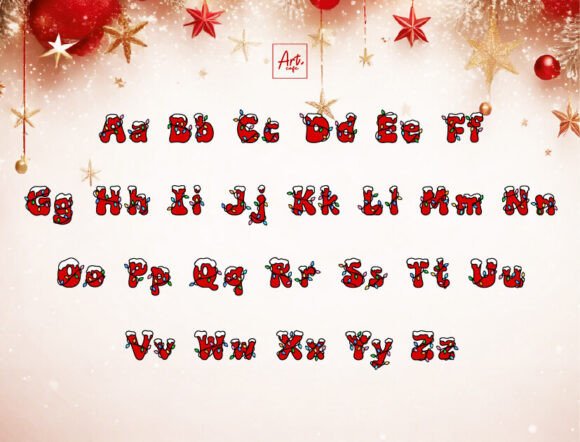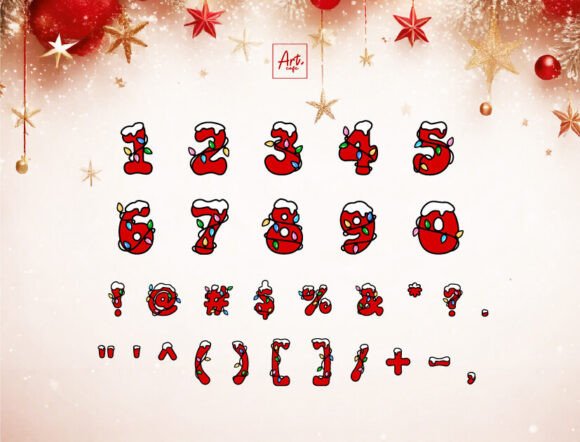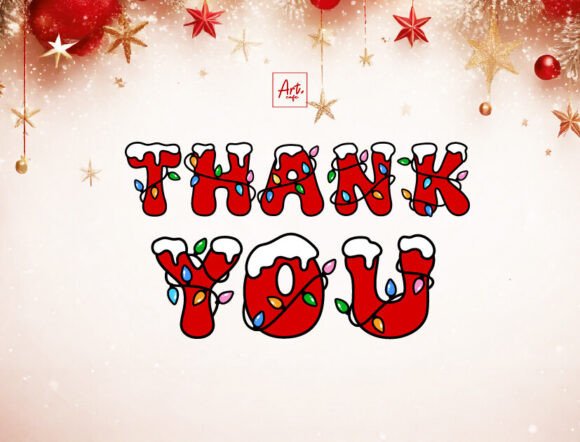
Welcome the Holiday Season with the Enchanting Christmas Lights Font
It’s the most wonderful time of the year! The holiday season is upon us, and what better way to get into the spirit than with a festive font that’s sure to sparkle and shine? Look no further than the Christmas Lights Font, a charming retro-style font that’s beautifully interspersed with playful fairy lights and a sprinkle of snow.
A Font that’s Full of Holiday Cheer
The Christmas Lights Font is a vibrant and fun font that’s perfect for winter or Christmas-themed projects. The font features a unique and colorful design, with a bold red hue that’s sure to grab attention. The playful fairy lights and snowflakes add a whimsical touch, making this font a great choice for designers and crafters who want to add a little extra magic to their projects.
Perfect for Winter and Christmas Projects
Whether you’re working on a Christmas card, a holiday party invitation, or a winter-themed craft project, the Christmas Lights Font is the perfect choice. The font’s festive design and bold color make it perfect for creating eye-catching headlines and titles, while the playful fairy lights and snowflakes add a fun and whimsical touch.
A Fun Choice for Children’s Projects
But the Christmas Lights Font isn’t just limited to adult projects – it’s also a great choice for kids’ projects! The font’s playful and colorful design makes it perfect for children’s party invitations, holiday crafts, and other fun projects. The font’s PNG files also make it easy to use with a variety of design software and apps.
Experience the Joy of Design with Christmas Lights
The Christmas Lights Font is more than just a font – it’s an experience. With its playful and festive design, it’s sure to bring a smile to your face and inspire your creativity. Whether you’re a professional designer or a crafter, this font is sure to help you create projects that are truly special.
Let Your Creativity Shine!
So why settle for a boring, generic font when you can add some holiday cheer to your projects with the Christmas Lights Font? With its unique and colorful design, this font is sure to make your projects stand out. So go ahead, let your creativity shine, and make this holiday season one to remember!
Key Features of the Christmas Lights Font
- Charming retro-style font with playful fairy lights and snowflakes
- Vibrant red hue that’s perfect for winter and Christmas-themed projects
- Perfect for designers, crafters, and anyone looking to add some holiday cheer to their projects
- Fun and playful design that’s great for kids’ projects
Get Ready to Make Your Projects Sparkle!
With the Christmas Lights Font, you’ll be able to create projects that are truly special. Whether you’re working on a Christmas card, a holiday party invitation, or a winter-themed craft project, this font is sure to add a touch of magic. So why wait? Get ready to make your projects sparkle with the Christmas Lights Font!